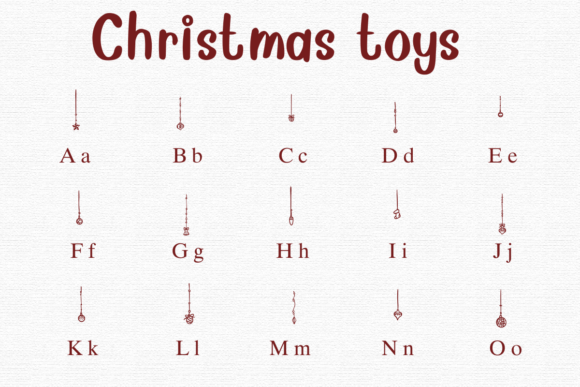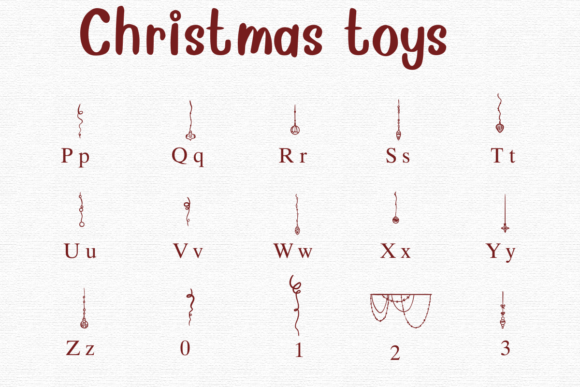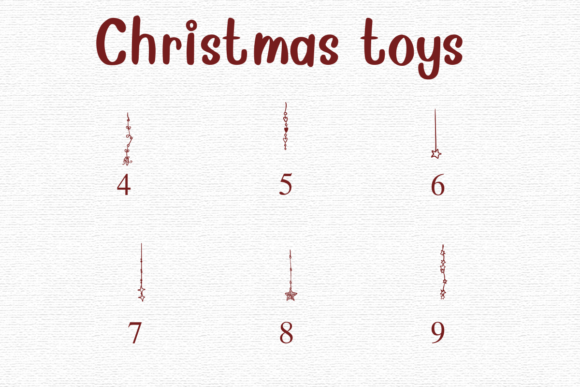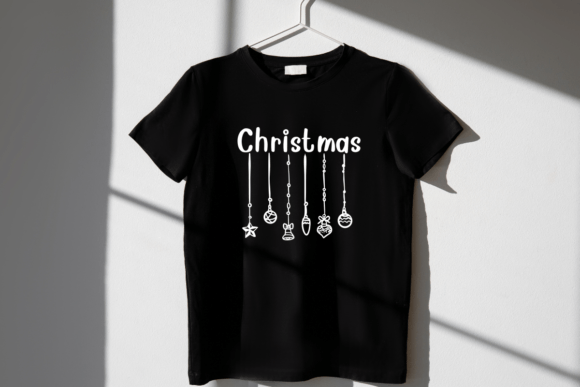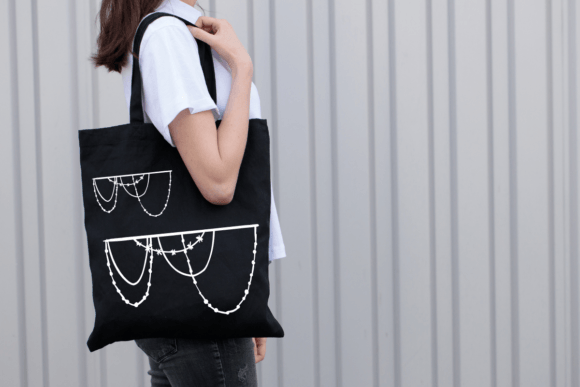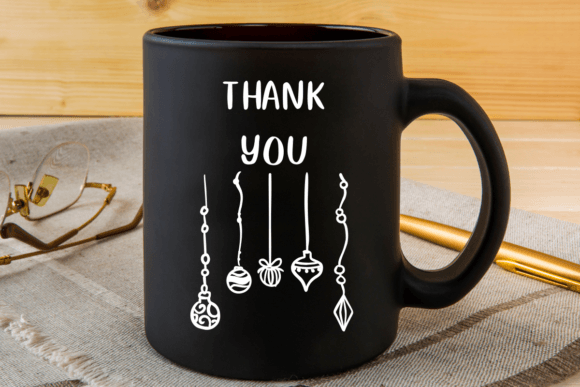
The Magic of Christmas Toys Font
It’s that time of the year when creativity knows no bounds, and the festive spirit takes over. You’re sipping hot cocoa, surrounded by twinkling lights, and the sound of carolers fills the air. Your design task for a holiday campaign is due soon, and you’re struggling to find the perfect font to convey the magic of the season. That’s when it hits you – a font that’s as festive as it is functional.
Enter Christmas Toys Font, a charming dingbat font that’s specifically designed to add a touch of holiday cheer to your designs. This delightful font features letters adorned with festive decorations like hanging ornaments, twinkling lights, and cheerful ribbons. With Christmas Toys Font, you can create designs that are both fun and professional, perfect for adding a personal touch to your holiday campaigns.
As a designer, you’ll appreciate the versatility of Christmas Toys Font, which can be used for a wide range of projects, from social media graphics to print advertisements. Its festive charm will undoubtedly make your designs stand out from the crowd, making it a valuable addition to your design toolkit.
Key Features of Christmas Toys Font
- Unique Characteristics: Whimsical, playful, and festive design elements, including snowflakes, bells, and toy shapes
Christmas Toys Font Review
Overall, I think Christmas Toys Font is a fun and playful addition to any project. ✨ It’s perfect for those looking to add a festive touch to their designs. Here are a few things that I think work well:
- Unique and creative characters that capture the spirit of the holiday season
- Good for headings and titles where you want to draw attention
- Works well in digital and print designs
However, there are a few limitations to consider: ⚠️
- Limited font styles (e.g. no bold, italic, or condensed options)
- May not be suitable for body text or long paragraphs due to its playful nature
- Not as versatile as some other fonts for more complex designs
In terms of overall impression, I think Christmas Toys Font is a solid choice for those looking to add some holiday cheer to their designs. It’s not perfect, but it’s a fun and creative option that can add a lot of personality to your work. Just be aware of its limitations and use it in the right context.
Christmas Toys Font: A Practical Application Guide
For the best results, use the Christmas Toys Font in designs related to the holiday season, such as Christmas cards, posters, and gift tags. You can also use it to create a festive atmosphere in your designs. To get the most out of the font, experiment with different font sizes, colors, and combinations with other fonts.